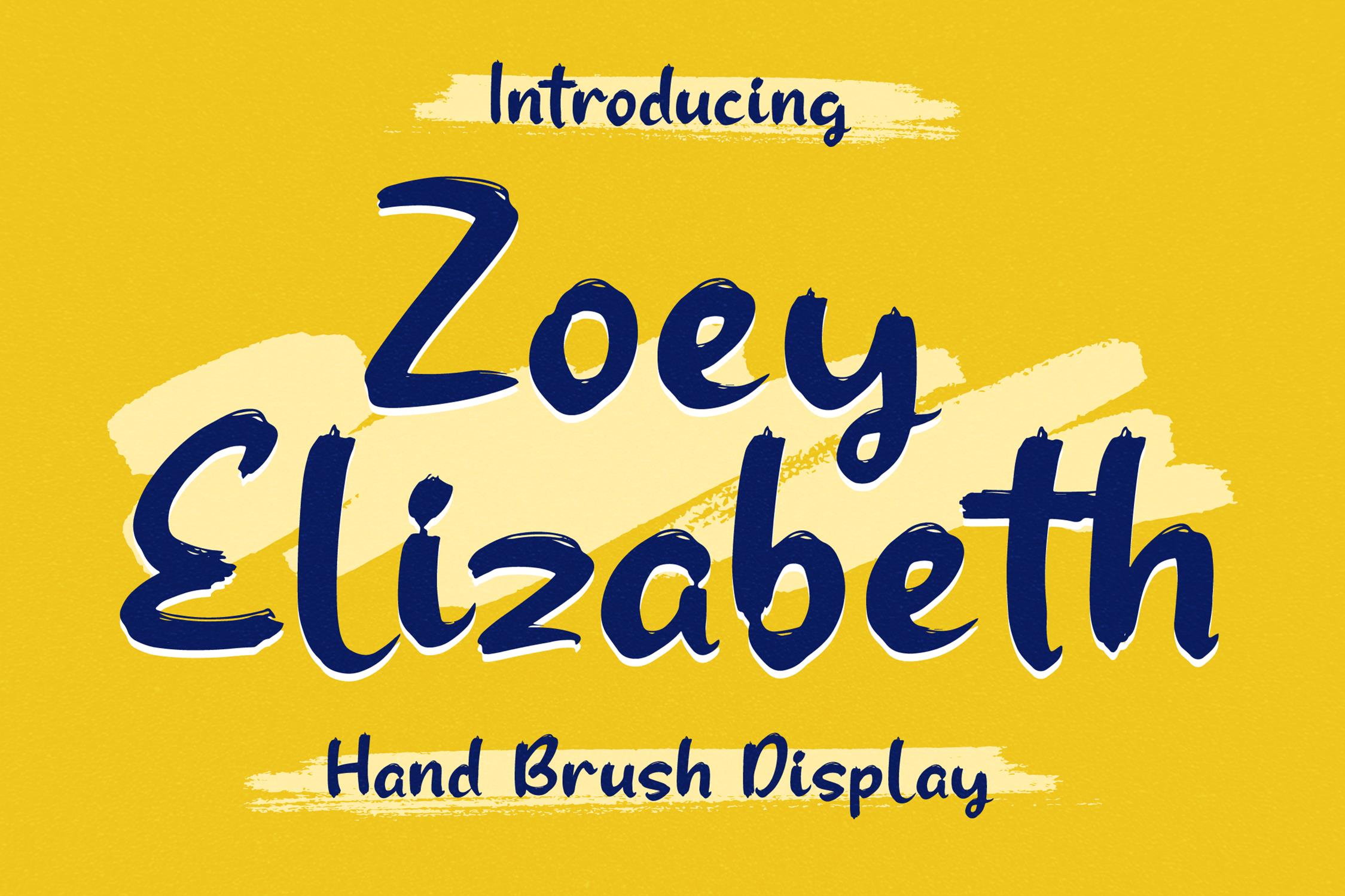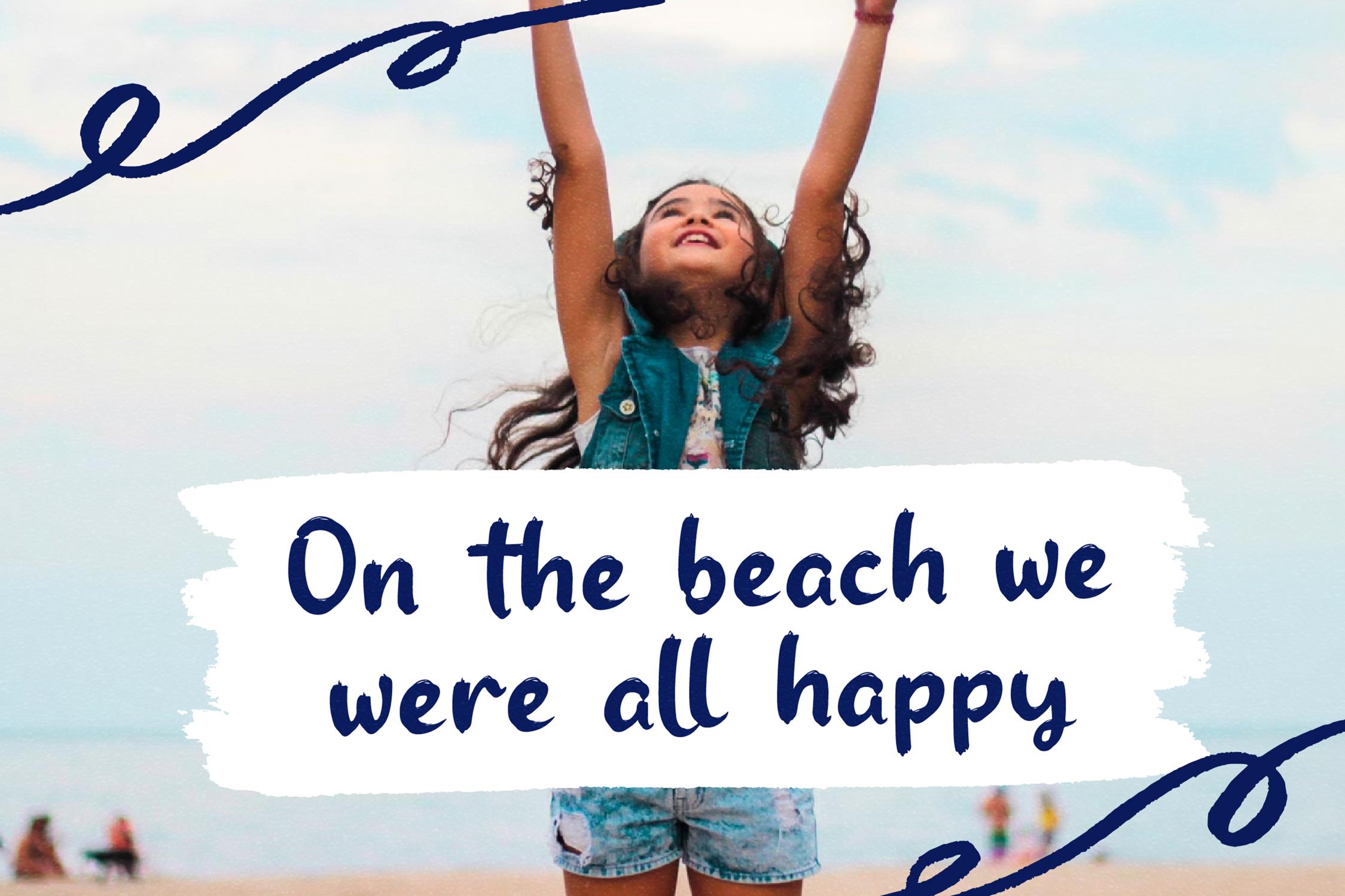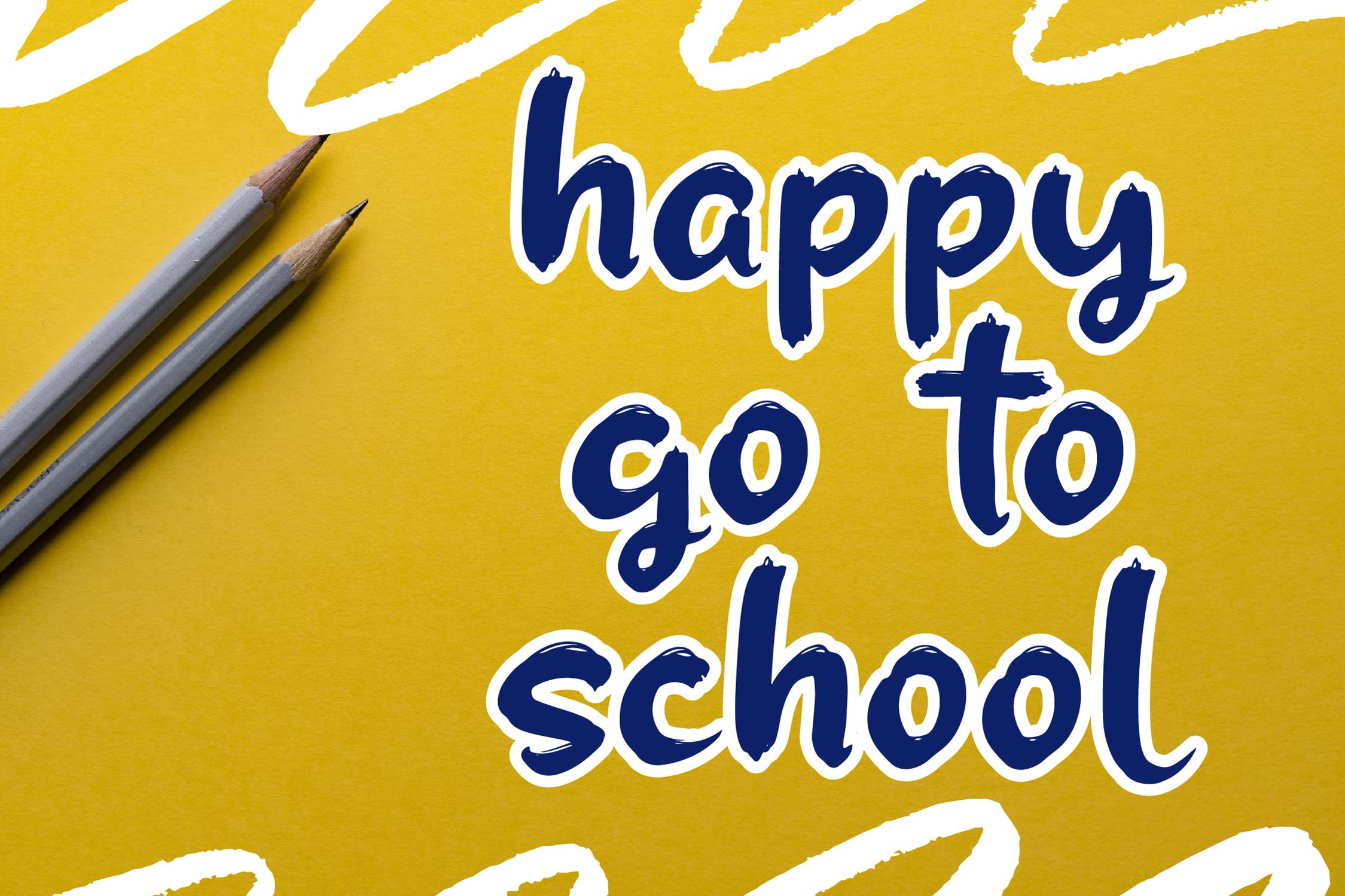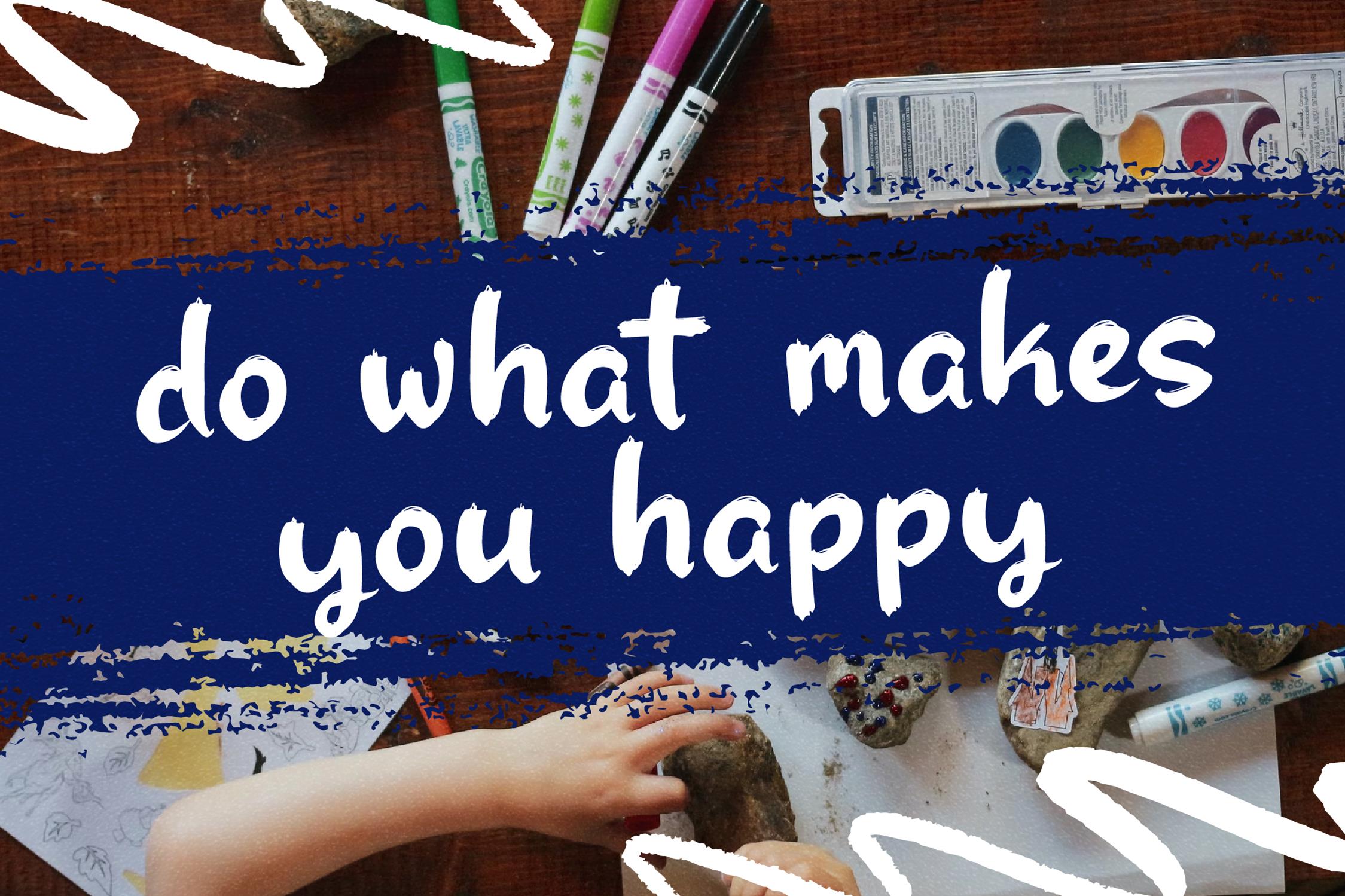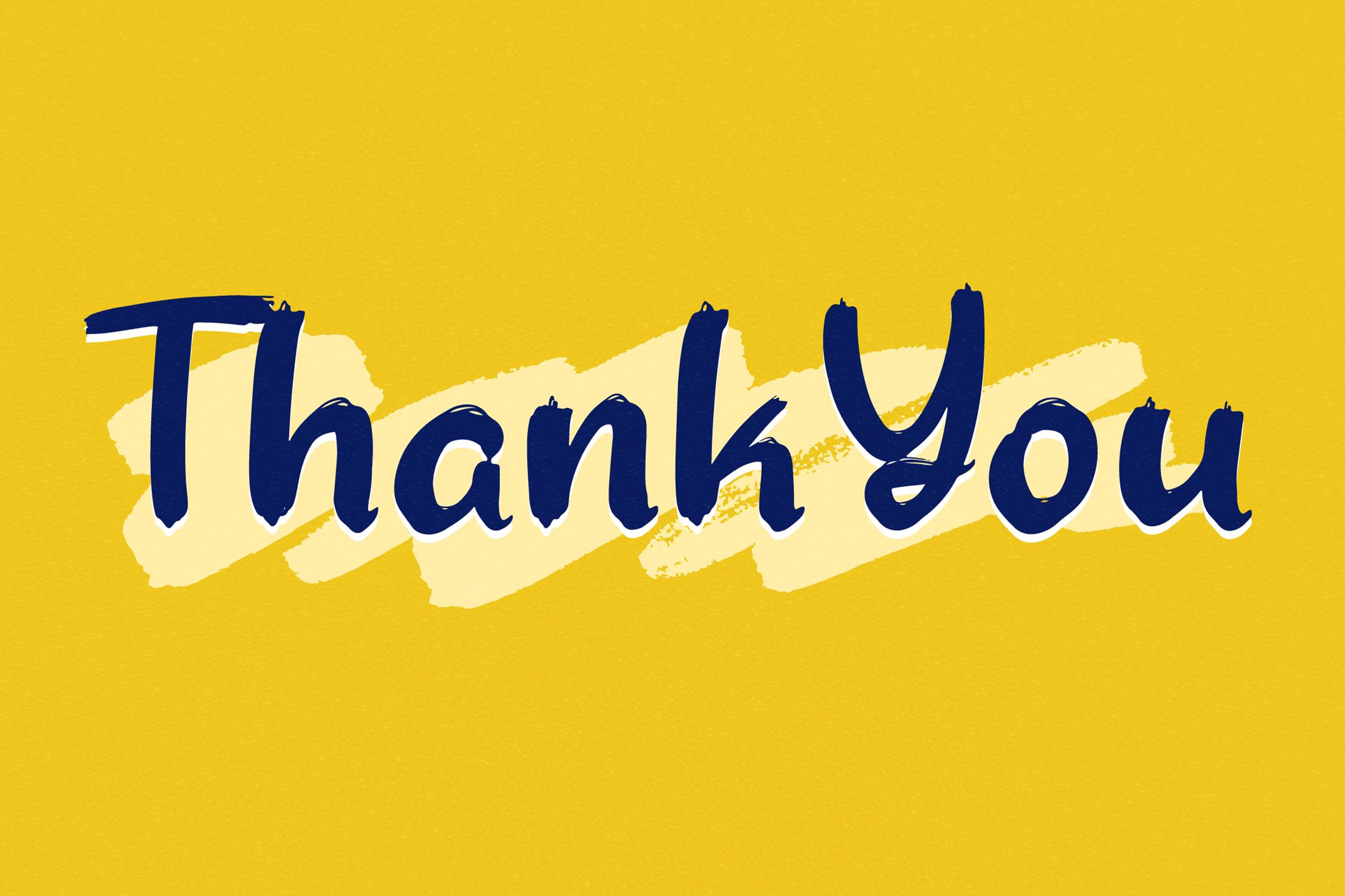
Zoey Elizabeth Free Font
Zoey Elizabeth Free Font is a beautiful handwritten font that simulates detailed brush writing and is very suitable for creating various design projects that require a scripted font. These can be posters, invitations, cards, branding, flyer prints, etc. If you wish to access more features and use them for commercial work please buy the full version.